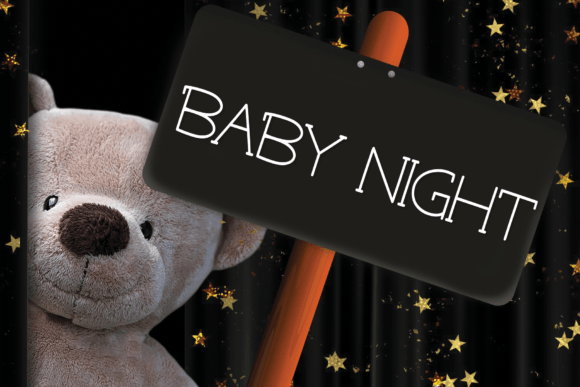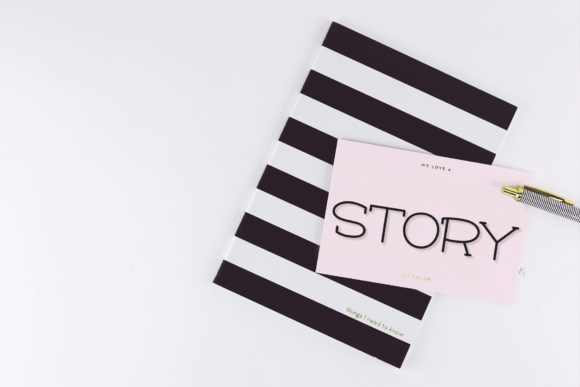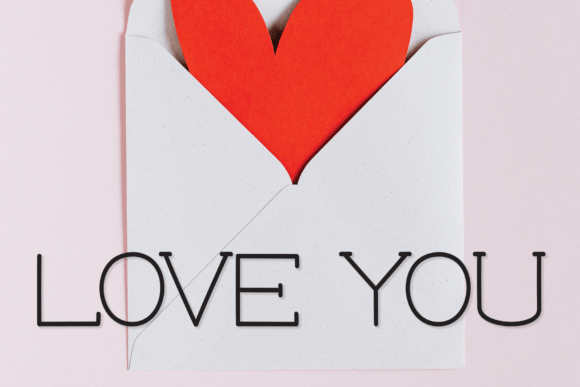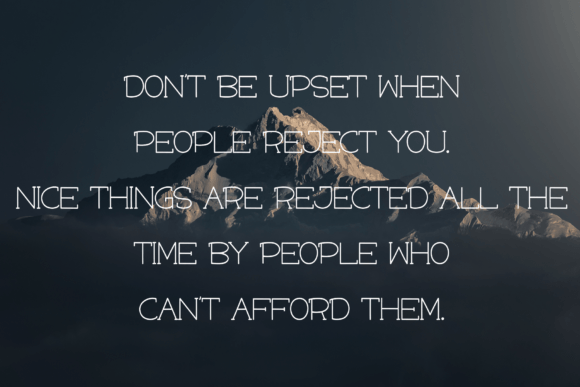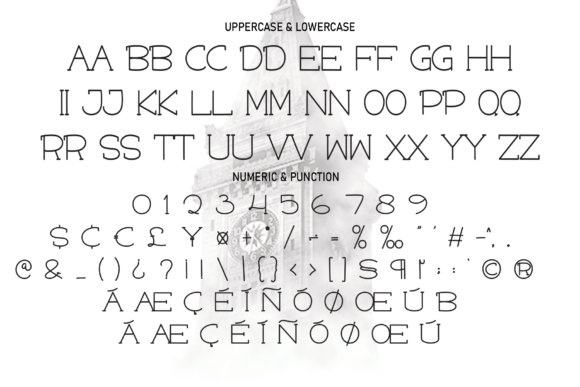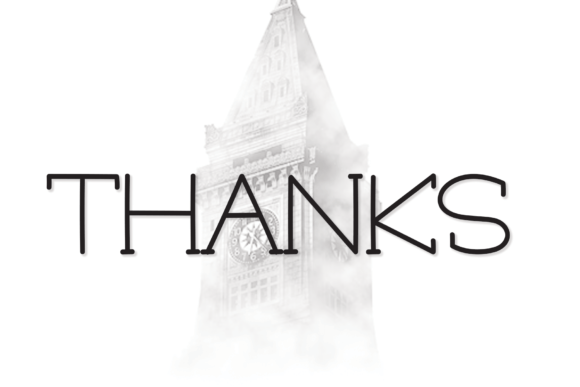
Introduction to Miniline Font
Miniline is a clean and simple serif font.
This typeface has thin lines and it’s perfectly suitable for branding, logos, business cards, posters, social media posts, and more .
Key Features of Miniline Font